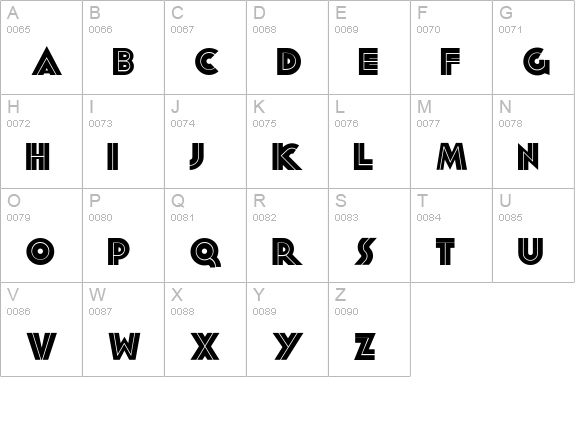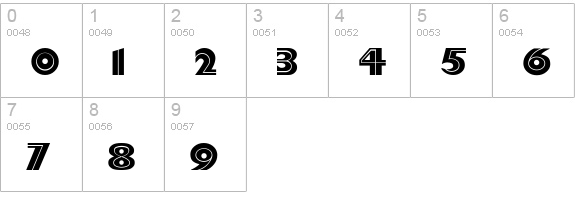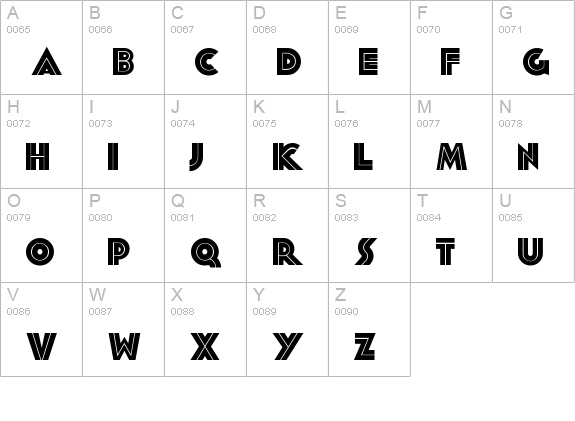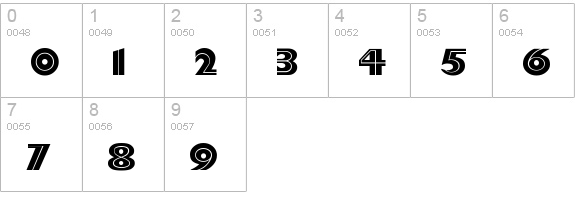
Forty-Second Street font is a modern and stylish typeface that exudes sophistication and elegance. Its sleek lines and slightly condensed form make it perfect for a wide range of design projects, from branding to editorial design. The font's clean and contemporary aesthetic gives any text a polished and professional look. What sets Forty-Second Street font apart is not only its timeless design, but also its accessibility. This font is freely available to download at FontsMarket.com, making it a valuable addition to any designer's toolkit. Whether you're working on a print advertisement, website design, or any other creative project, Forty-Second Street font is sure to elevate your work and leave a lasting impression on your audience.